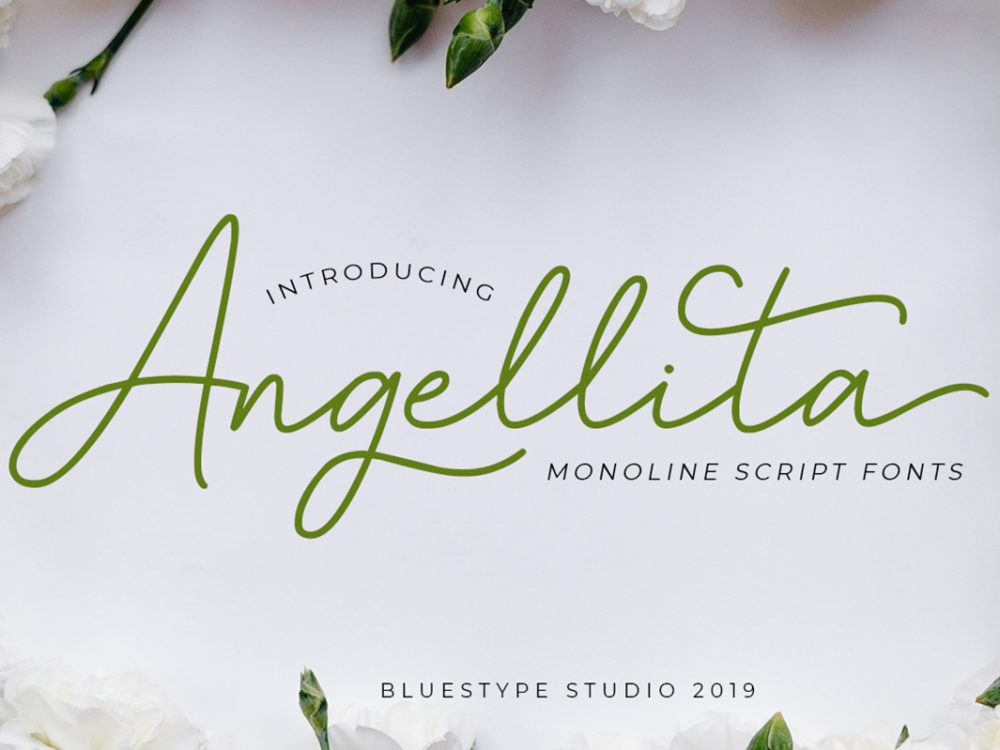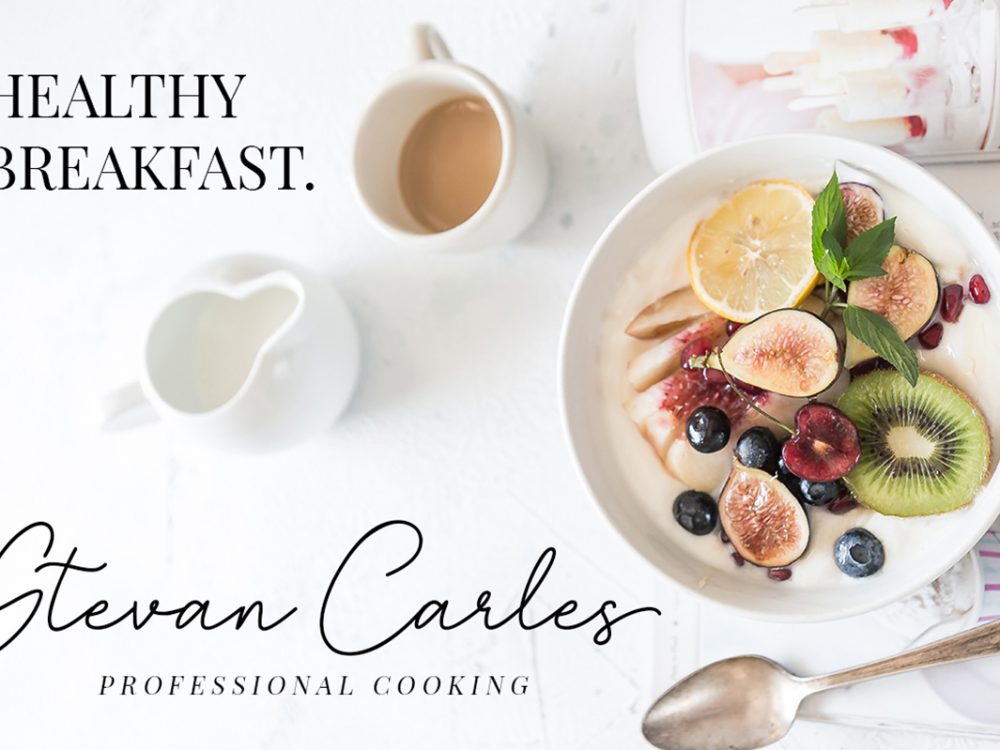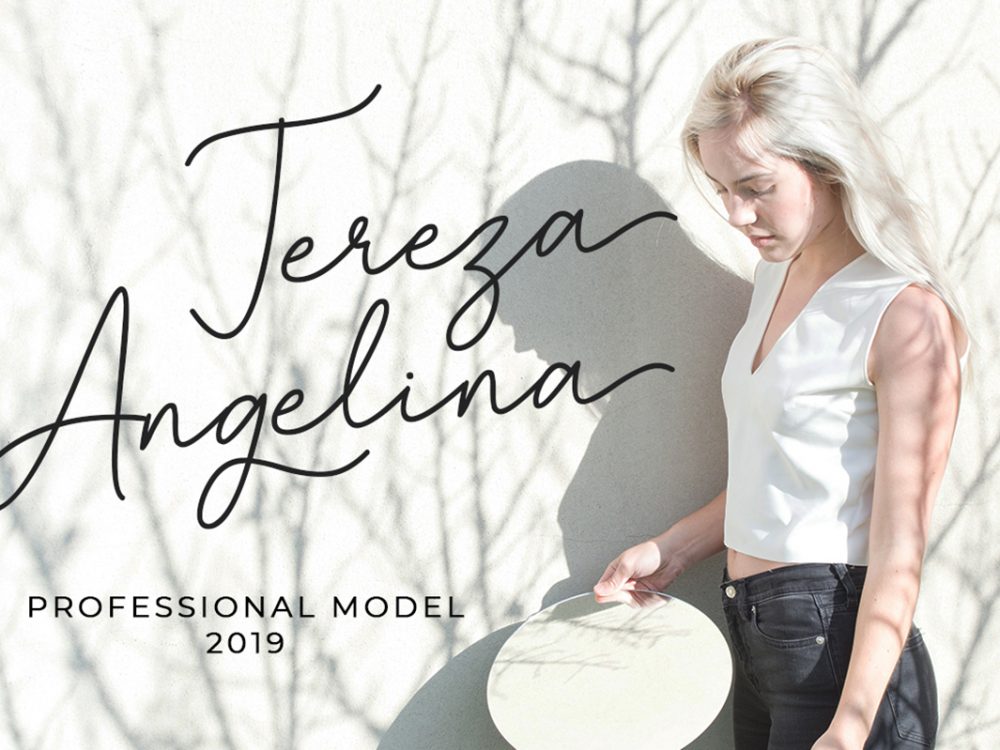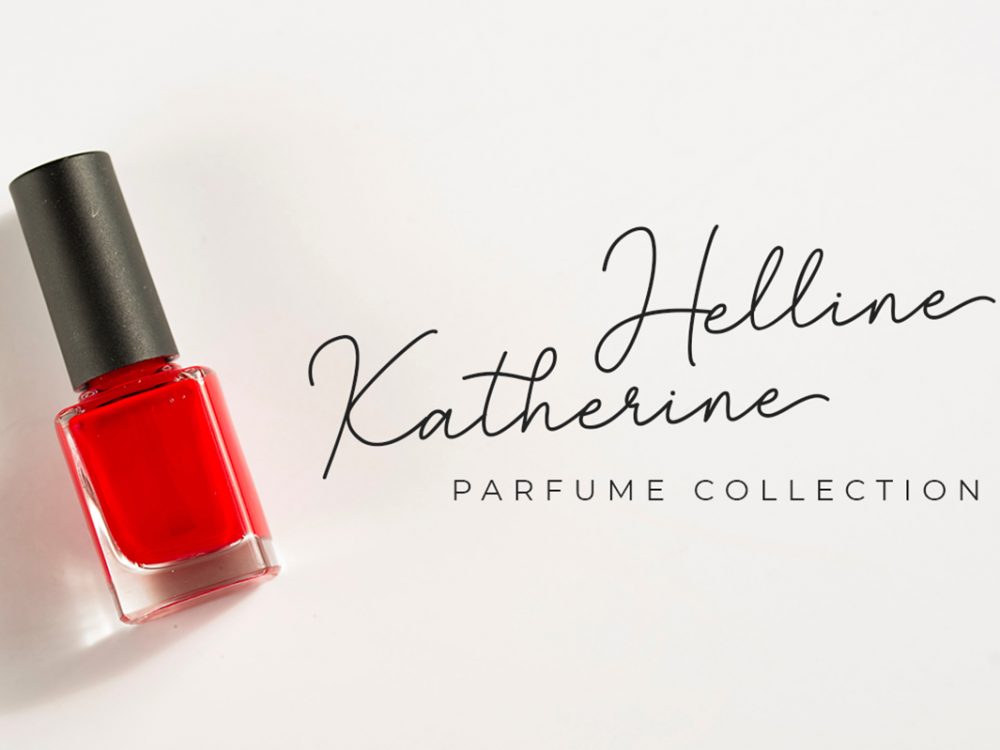
Angellita Free Font
Angellita Free Font is a scripted handwritten font that features an elegant calligraphic style. This font is suitable for creating various design projects. You can use this font to create memorable posters, wedding invitations, cards, branding, flyers, and more. Improve the quality and increase the popularity of your design projects using this font. If you like it don’t forget to check out the full version.